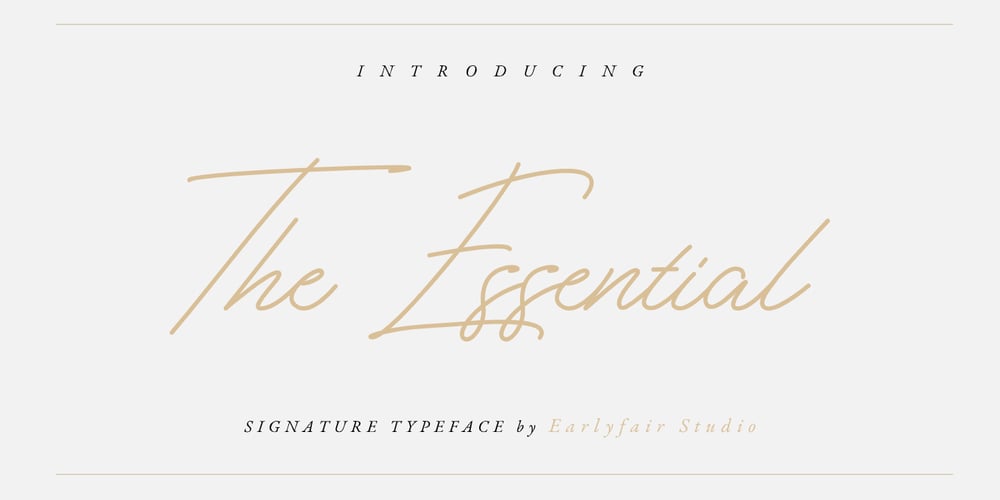
The Essential Font Family was designed by Fahmi Huzaini and published by Earlyfair Studio. The Essential contains 1 styles and family package options. The Essential is a script font that combines minimalist and classical styling so that your design will look elegant when viewed. Hope you enjoy it!